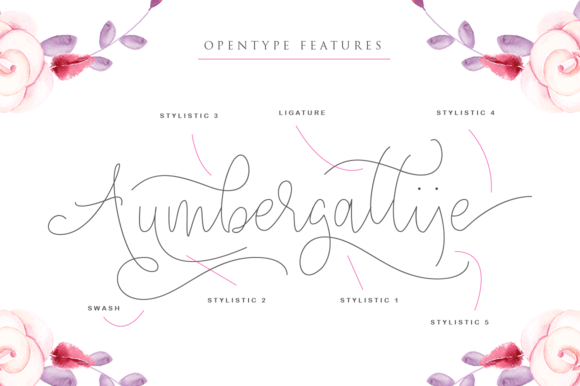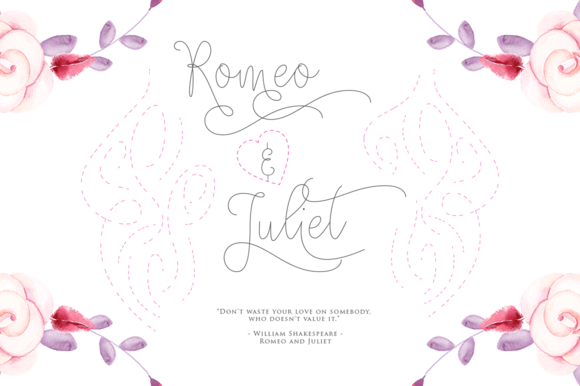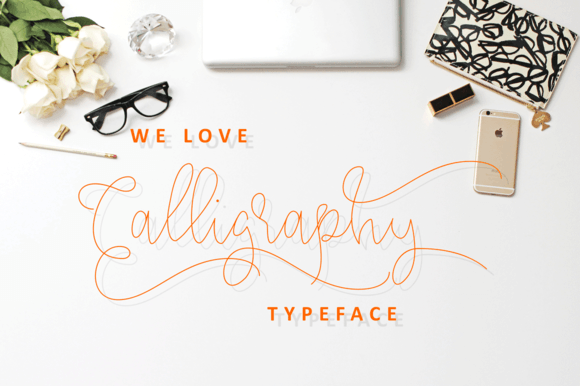
Introducing Angelova Font: Elevate Your Designs with Elegance and Sophistication
In the world of typography, a new modern calligraphy font has emerged to capture the hearts of designers and crafters alike. Meet Angelova Font, a stunning addition to the realm of digital fonts that seamlessly blends classic charm with a modern edge. This exquisite font is designed to add an elegant touch to a wide range of design projects, making it an indispensable tool for creatives seeking to elevate their work.
What is Angelova Font?
Angelova Font is a meticulously crafted modern calligraphy font that exudes sophistication and refinement. Its classic roots are evident in its fluid, cursive strokes, while its modern twist adds a fresh and contemporary feel. This versatile font is perfect for designers and crafters looking to infuse their projects with a touch of luxury and poise.
Key Features of Angelova Font
- Modern Calligraphy Style: Angelova Font boasts a beautiful, modern calligraphy style that is both elegant and eye-catching.
- Classic and Edgy: The font strikes the perfect balance between classic sophistication and modern edginess, making it suitable for a wide range of design applications.
- Highly Versatile: Use Angelova Font for headings, logos, wedding invitations, t-shirts, letterheads, signages, labels, news, posters, badges, and more.
- Elegant Touch: Add a touch of elegance and refinement to your designs with this stunning font.
Uses of Angelova Font
Angelova Font is incredibly versatile and can be used for various purposes, including:
- Wedding Invitations: Create beautiful, elegant wedding invitations that set the tone for a sophisticated and memorable event.
- Logos and Branding: Use Angelova Font to create stunning logos and branding materials that exude luxury and refinement.
- Signages and Posters: Add a touch of elegance to signages, posters, and other display materials with this beautiful font.
- Fashion and Apparel: Use Angelova Font to create eye-catching designs for t-shirts, dresses, and other fashion items.
- Stationery and Paper Products: Elevate your stationery and paper products, such as letterheads, labels, and greeting cards, with this exquisite font.
Benefits of Using Angelova Font
By incorporating Angelova Font into your designs, you can:
- Enhance Visual Appeal: Add a touch of elegance and sophistication to your designs, making them more visually appealing.
- Stand Out from the Crowd: Use Angelova Font to differentiate your designs from others and make them more memorable.
- Convey Luxury and Refinement: This font is perfect for designs that require a sense of luxury, sophistication, and refinement.
- Increase Engagement: The elegant and eye-catching nature of Angelova Font can help increase engagement and attract attention.
| Author | Ian Mikraz |
Angelova Font is a stunning modern calligraphy font that offers a perfect blend of classic charm and modern sophistication. Its versatility, elegance, and refinement make it an excellent choice for designers and crafters looking to elevate their designs. Whether you’re working on wedding invitations, logos, signages, or fashion items, Angelova Font is sure to add a touch of luxury and poise to your projects. So why wait? Discover the beauty of Angelova Font and take your designs to the next level.